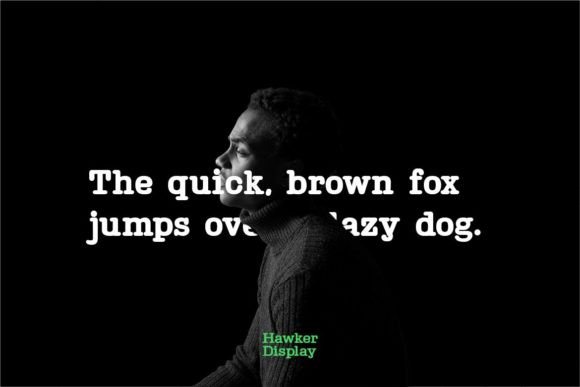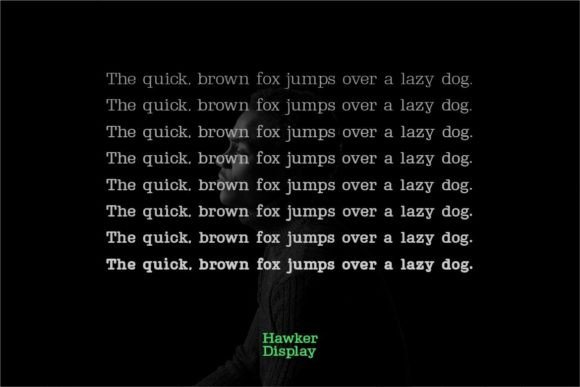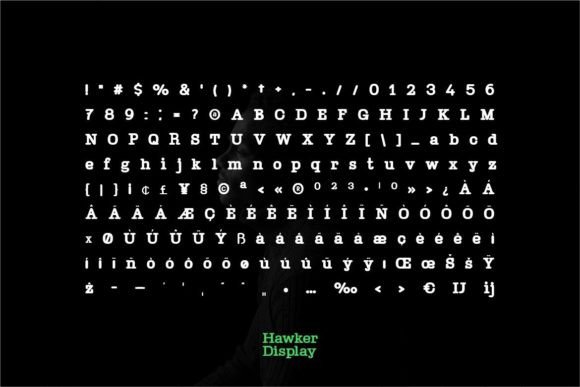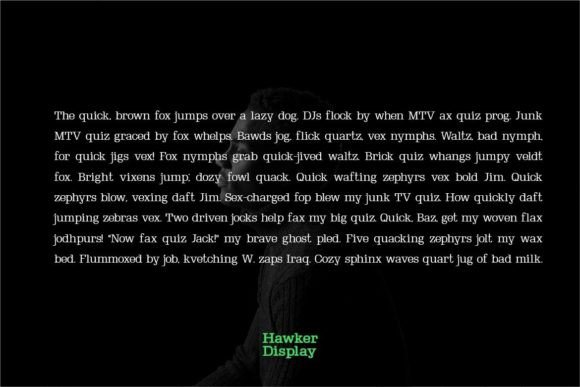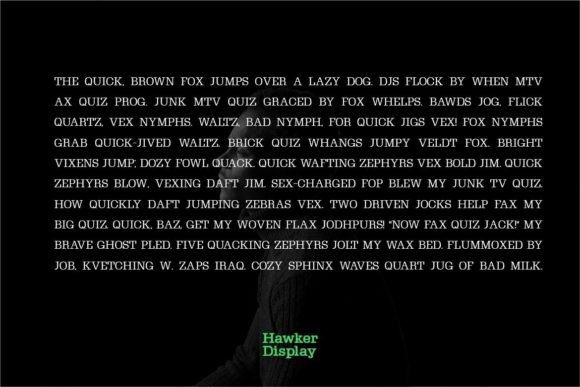
Hawker Font: Elevate Your Designs with a Simple, Modern, and Impressive Serif
In the world of typography, fonts play a crucial role in bringing designs to life. A well-chosen font can make all the difference in capturing the essence of a message, conveying emotions, and engaging audiences. For designers and crafters seeking a versatile and impactful font, Hawker Font is an excellent choice. This simple, modern, and impressive serif font has gained popularity for its beautiful and well-balanced characters, making it an ideal match for a wide range of designs.
The Characteristics of Hawker Font
Hawker Font boasts a unique blend of simplicity and sophistication. Its serif design adds a touch of elegance, while its clean lines and balanced characters ensure that it remains highly legible. The font’s modern aesthetic makes it perfect for designers who want to create fresh and contemporary designs. Whether you’re working on a branding project, a website, or a craft, Hawker Font’s versatility ensures that it will complement your ideas beautifully.
Why Choose Hawker Font?
So, what makes Hawker Font stand out from the crowd? Here are a few reasons why designers and crafters love this font:
- Simple yet Impactful: Hawker Font’s simplicity is its greatest strength. It allows designers to create clean and uncluttered designs that communicate their message effectively.
- Modern Aesthetic: The font’s modern look and feel make it perfect for designs that require a fresh and contemporary approach.
- Well-Balanced Characters: Hawker Font’s characters are beautifully balanced, ensuring that your text is easy to read and visually appealing.
- Versatile: This font is suitable for a wide range of designs, from branding and advertising to web design and crafting.
How to Use Hawker Font in Your Designs
Adding Hawker Font to your designs is a straightforward process. Here are a few tips to get you started:
- Pair it with Other Fonts: Experiment with pairing Hawker Font with other fonts to create a unique and visually appealing combination.
- Use it for Headings and Body Text: Hawker Font is suitable for both headings and body text, making it a great choice for designs that require a consistent typography.
- Customize it: Don’t be afraid to experiment with different colors, sizes, and styles to make Hawker Font your own.
The Benefits of Using Hawker Font
By incorporating Hawker Font into your designs, you can enjoy a range of benefits, including:
- Improved Readability: Hawker Font’s clean lines and balanced characters ensure that your text is easy to read.
- Increased Engagement: The font’s modern aesthetic and elegant design make it perfect for capturing audiences’ attention.
- Enhanced Creativity: Hawker Font’s versatility and simplicity make it an excellent choice for designers and crafters looking to push their creative boundaries.
In conclusion, Hawker Font is a simple, modern, and impressive serif font that can elevate your designs to new heights. Its beautiful and well-balanced characters make it a versatile choice for a wide range of designs. Whether you’re a designer or a crafter, Hawker Font is an excellent addition to your typography collection. So why not give it a try and see how it can bring your creative ideas to life?
Add Hawker Font to your most creative ideas and notice how it makes them come alive! With its unique blend of simplicity, elegance, and versatility, this font is sure to become a favorite among designers and crafters.